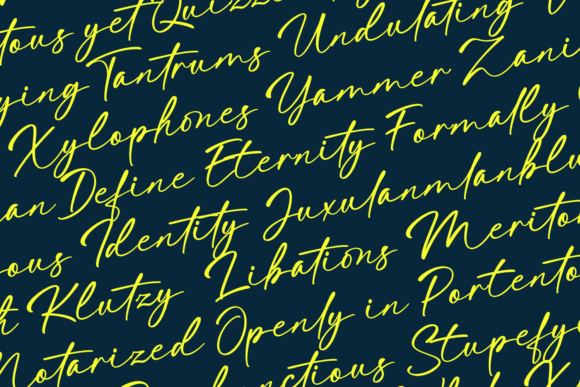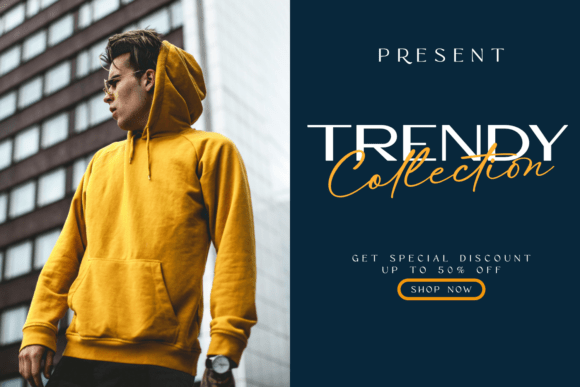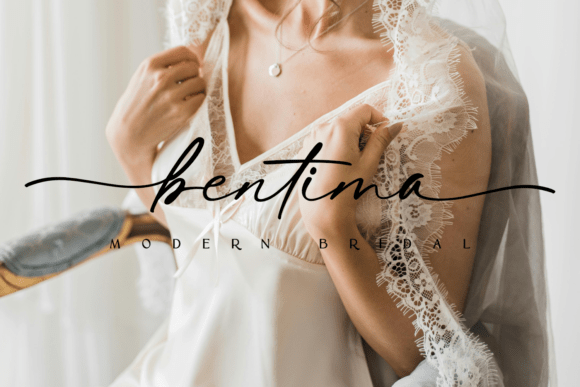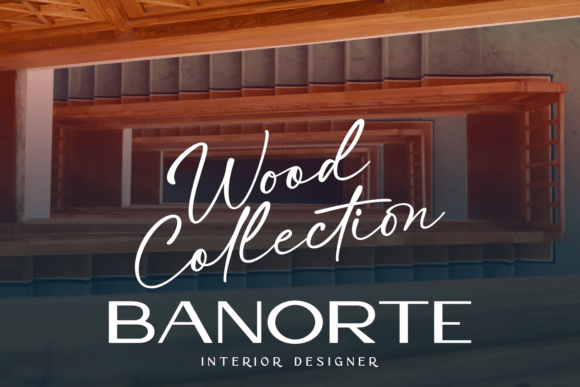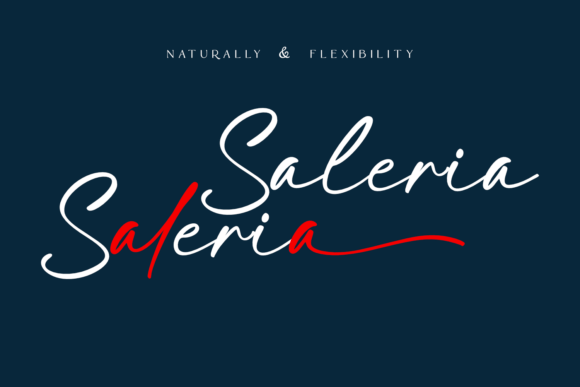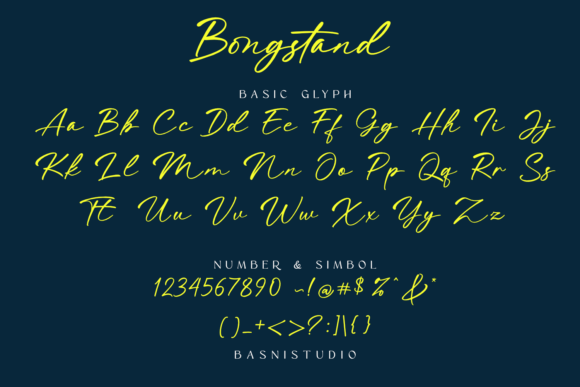
Bongstand Font: Elevate Your Designs with a Vibrant Handwritten Style
In the world of typography, a font can make or break a design. If you’re looking for a typeface that exudes energy, confidence, and playfulness, look no further than Bongstand – a vibrant handwritten font that’s perfect for designers and crafters alike. In this article, we’ll dive into the features and benefits of Bongstand, and explore how it can elevate your designs to the next level.
The Anatomy of Bongstand
Bongstand is a bold script font that perfectly blends casual street-style lettering with a sharp, digital layout rhythm. Its athletic, confident signature look relies on strong capital stems, highly visible x-height tracking, and crisp, fluid letter connections that give sentences an uninterrupted visual current. This unique combination of features makes Bongstand a standout in the world of typography.
Key Features of Bongstand
- Bold Script Anatomy: Bongstand’s bold script anatomy gives it a confident and energetic feel, making it perfect for designs that need to make a statement.
- Consistent Forward Tilt: The font’s consistent forward tilt gives it a sense of movement and dynamism, adding to its energetic feel.
- Smooth, Heavy Vector Paths: Bongstand’s smooth, heavy vector paths ensure that it cuts through deep solid colors, dark navy fields, or high-density background graphics with ultimate legibility.
- Highly Versatile: Bongstand is a highly versatile font that can be used for a wide range of design projects, from progressive tech startup banners to retro sports merchandise headers.
Use Cases for Bongstand
Bongstand is a highly versatile font that can be used for a wide range of design projects, including:
- Progressive Tech Startup Banners: Bongstand’s bold and energetic feel makes it perfect for tech startup banners that need to make a statement.
- Active Lifestyle Branding: The font’s athletic and confident signature look makes it ideal for active lifestyle branding, such as sports equipment and apparel.
- Retro Sports Merchandise Headers: Bongstand’s bold and playful feel makes it perfect for retro sports merchandise headers, such as vintage-style sports jerseys and posters.
- Creative Studio Logotypes: The font’s unique and energetic feel makes it ideal for creative studio logotypes, such as design studios and advertising agencies.
- Modern Social Media Marketing Titles: Bongstand’s bold and attention-grabbing feel makes it perfect for modern social media marketing titles, such as Facebook and Instagram posts.
Benefits of Using Bongstand
So why choose Bongstand for your design projects? Here are just a few benefits of using this vibrant handwritten font:
- Adds Energy and Confidence to Your Designs: Bongstand’s bold and energetic feel adds a level of confidence and energy to your designs, making them more engaging and attention-grabbing.
- Perfect for Designs that Need to Make a Statement: The font’s bold and playful feel makes it perfect for designs that need to make a statement, such as banners, posters, and social media posts.
- Highly Legible: Bongstand’s smooth, heavy vector paths ensure that it remains highly legible, even in complex designs with deep solid colors or high-density background graphics.
Tips for Using Bongstand Effectively
To get the most out of Bongstand, here are a few tips for using it effectively:
- Use it as a Centerpiece: Bongstand is perfect for use as a centerpiece in your designs, such as in banners, posters, and social media posts.
- Pair it with Contrasting Fonts: The font’s bold and energetic feel makes it perfect for pairing with contrasting fonts, such as clean and simple sans-serif fonts.
- Experiment with Colors and Backgrounds: Bongstand’s smooth, heavy vector paths ensure that it remains highly legible, even in complex designs with deep solid colors or high-density background graphics.
| Author | bee.genin |
In conclusion, Bongstand is a vibrant handwritten font that’s perfect for designers and crafters looking to add energy and confidence to their designs. With its bold script anatomy, consistent forward tilt, and smooth, heavy vector paths, Bongstand is a highly versatile font that can be used for a wide range of design projects. Whether you’re working on a progressive tech startup banner, an active lifestyle branding project, or a retro sports merchandise header, Bongstand is the perfect choice.